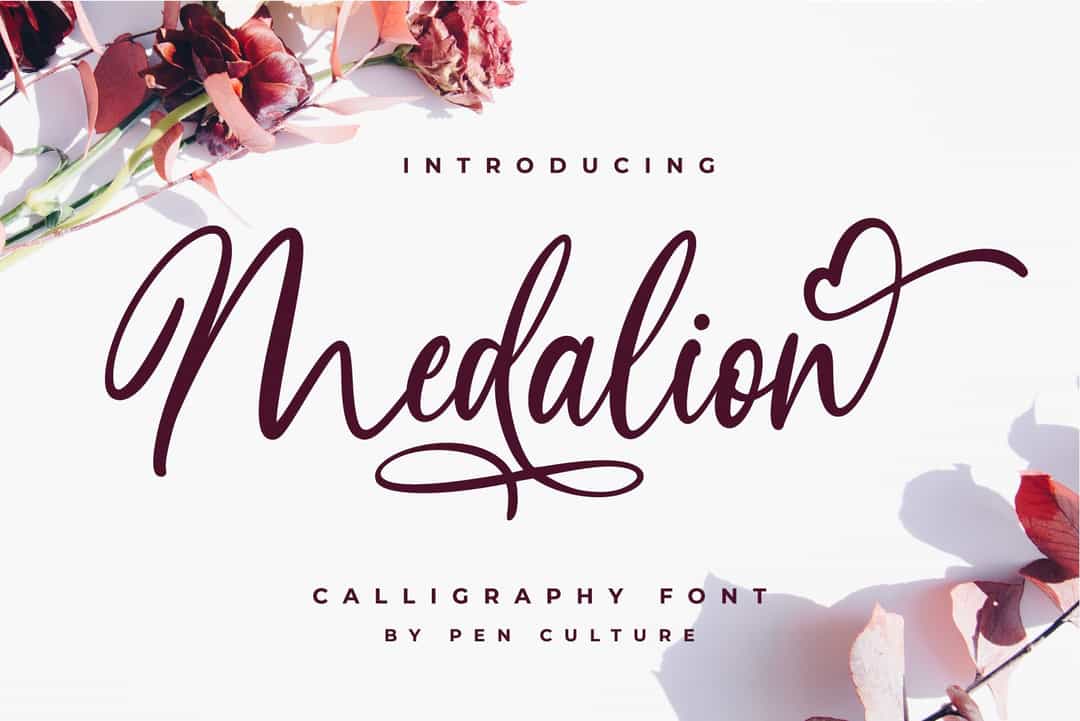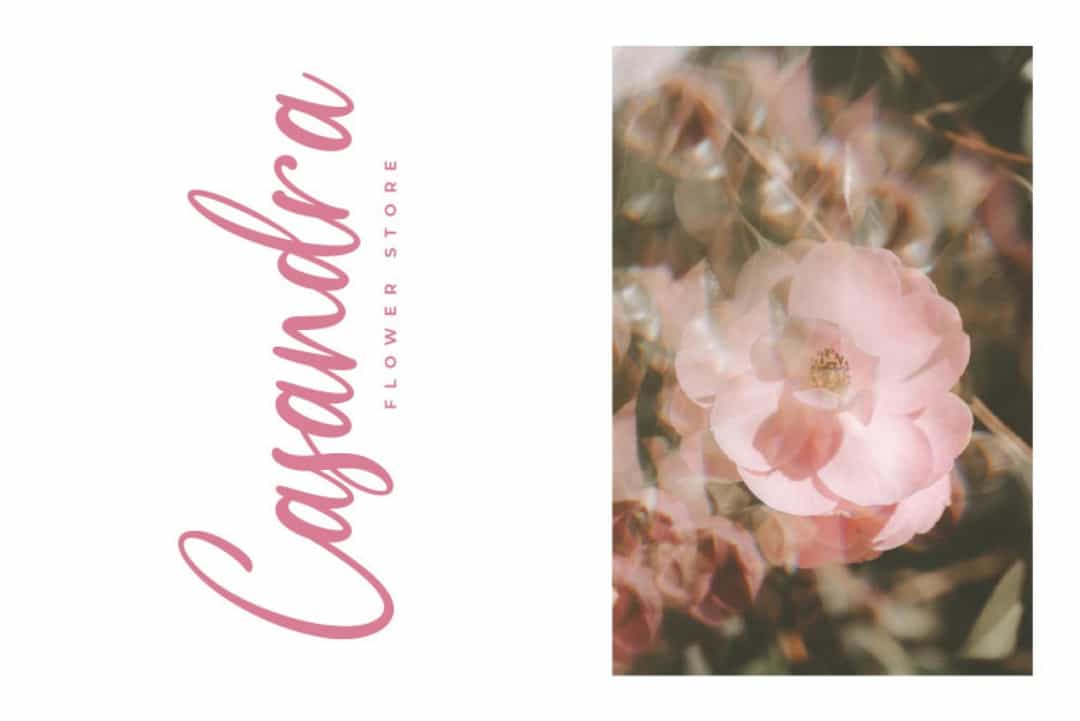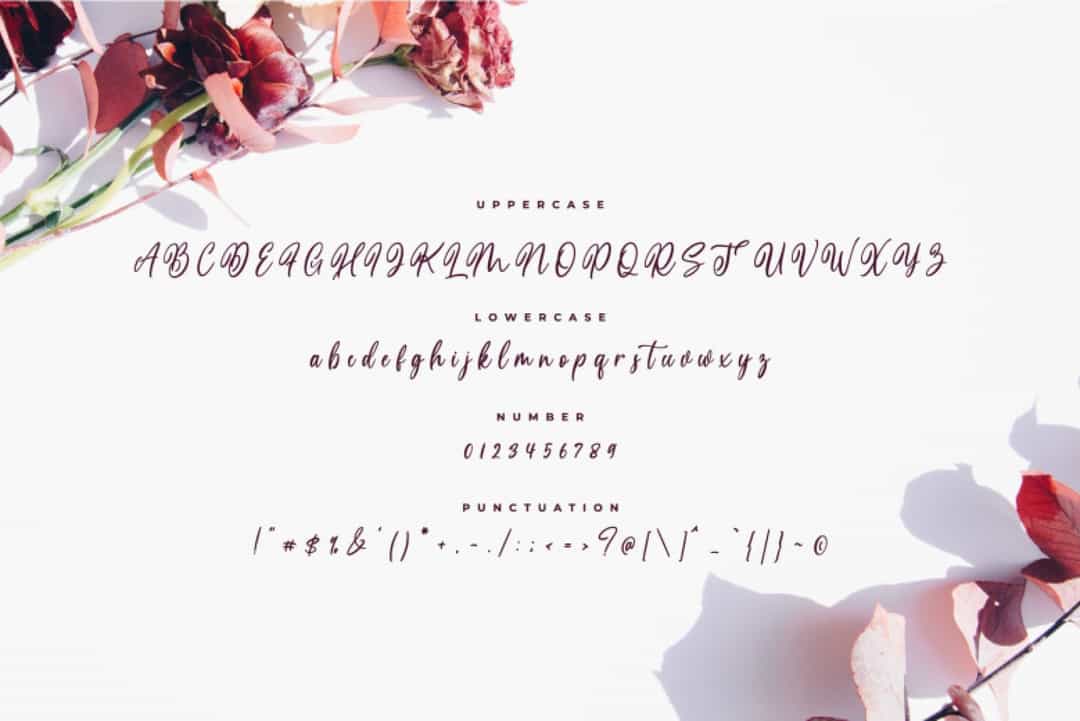
Pen Culture is delighted to introduce their Medalion Calligraphy Font, a modern calligraphy font designed with various interesting features that is ideal for wedding invitations, branding materials and cards, amongst other uses.